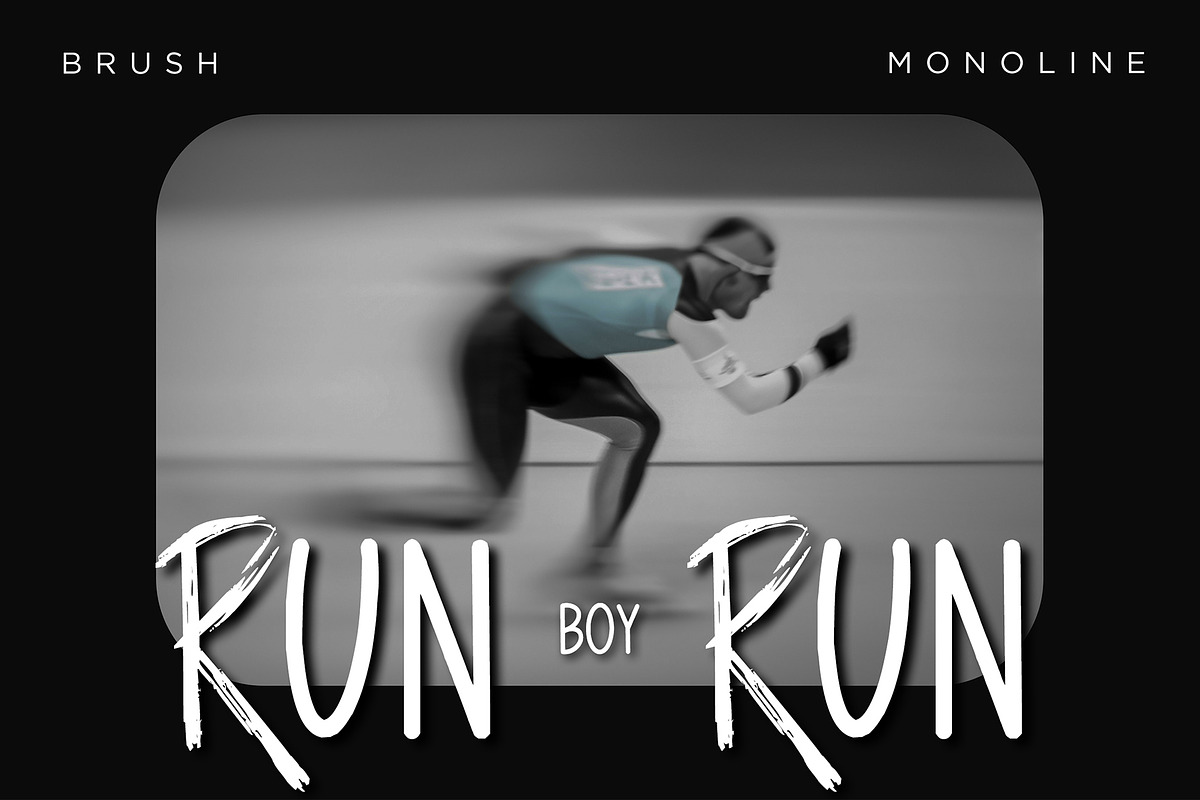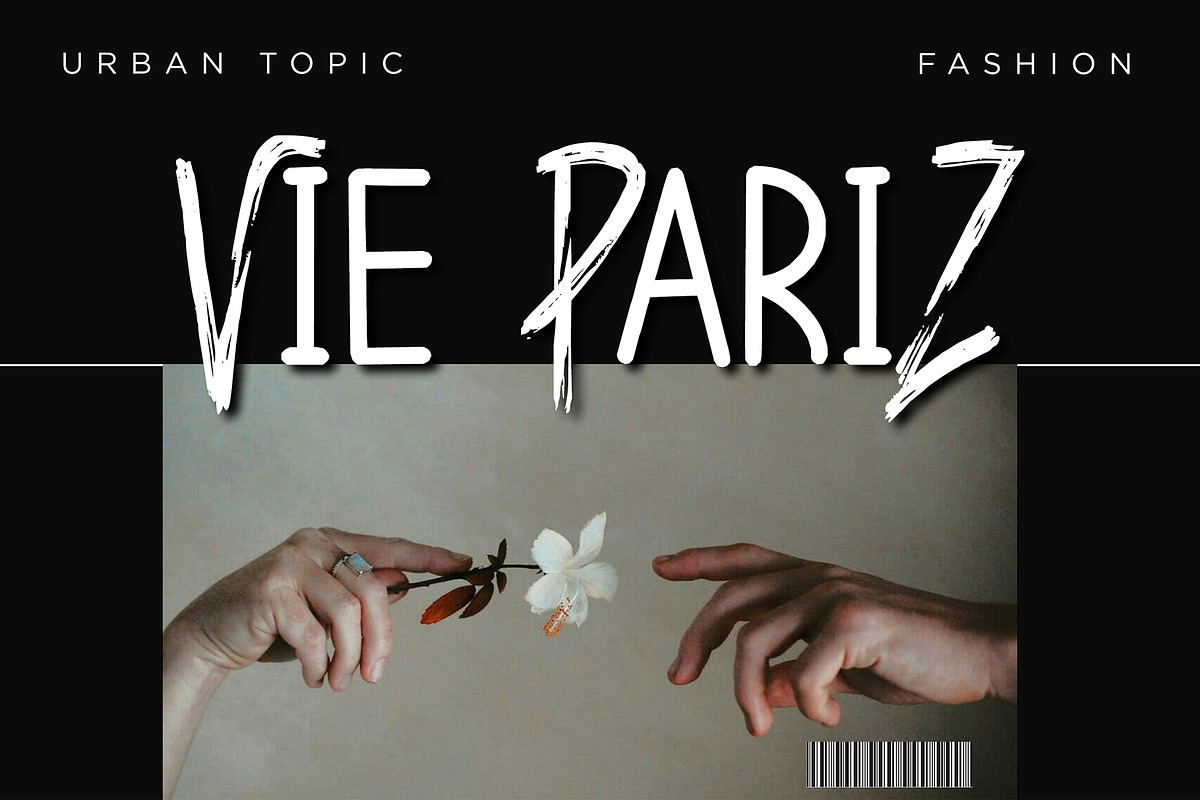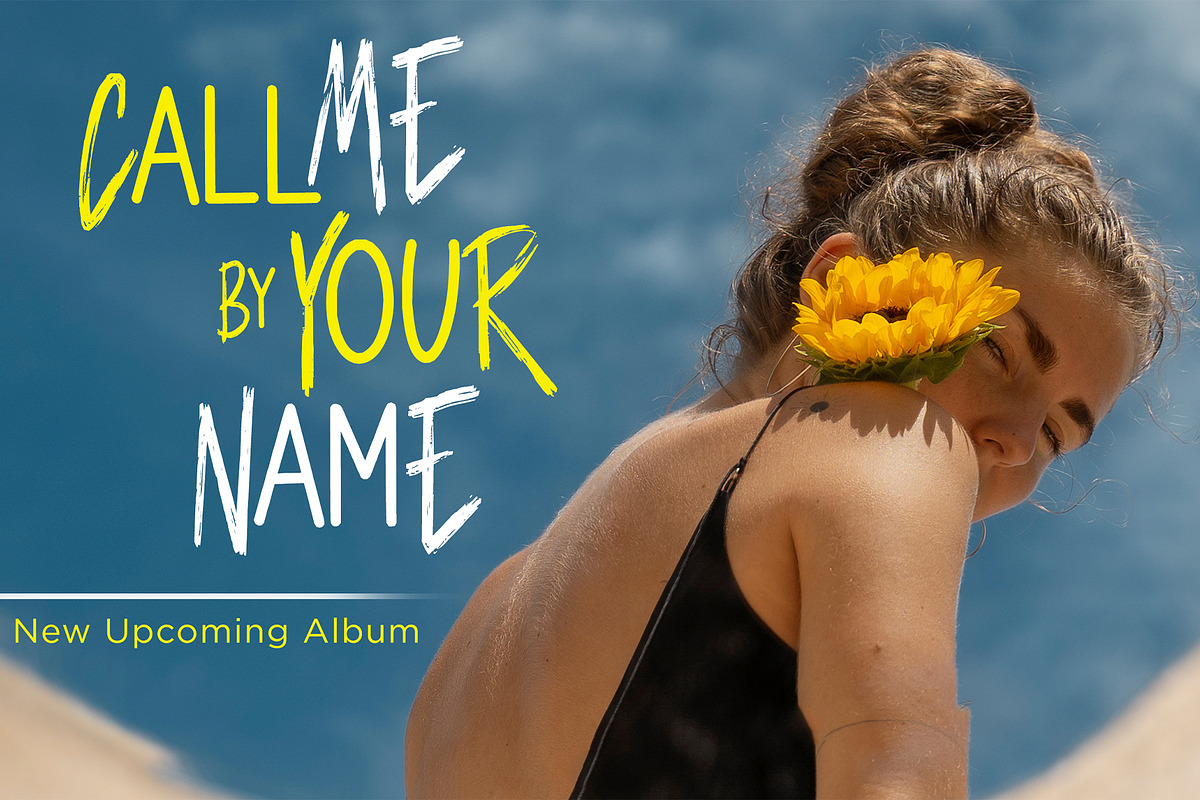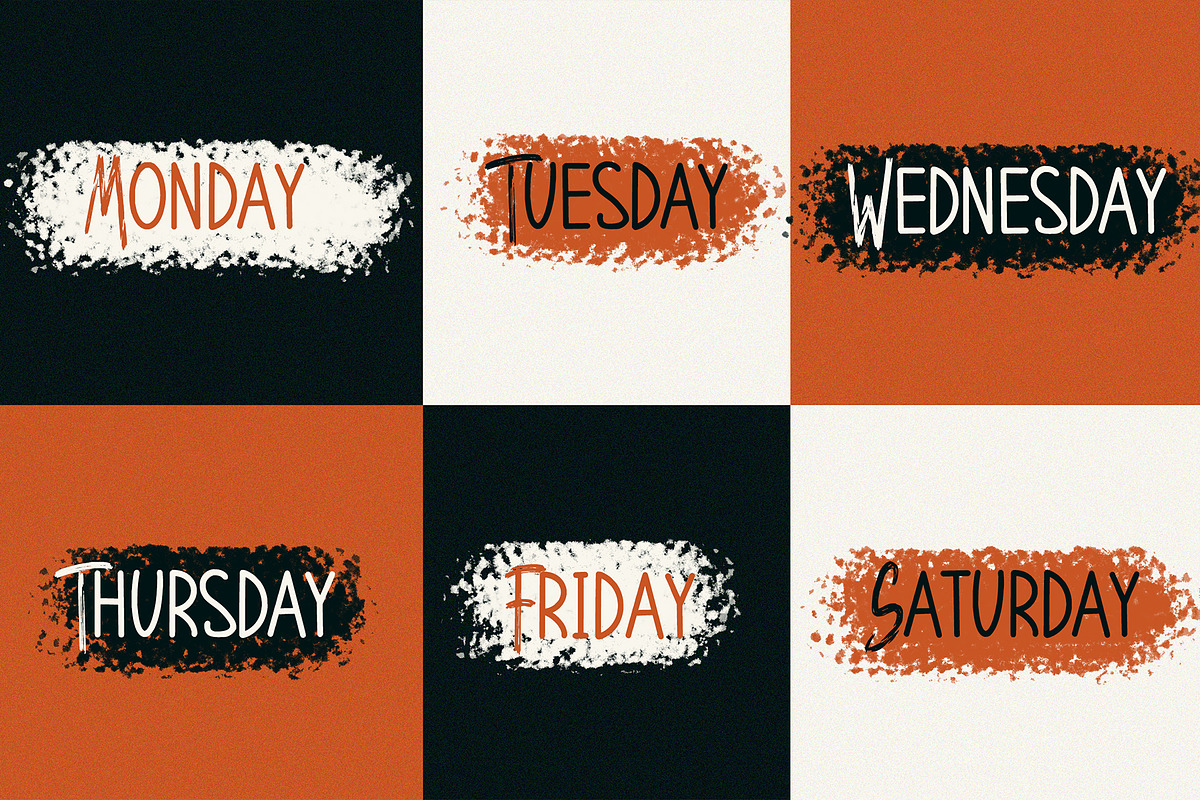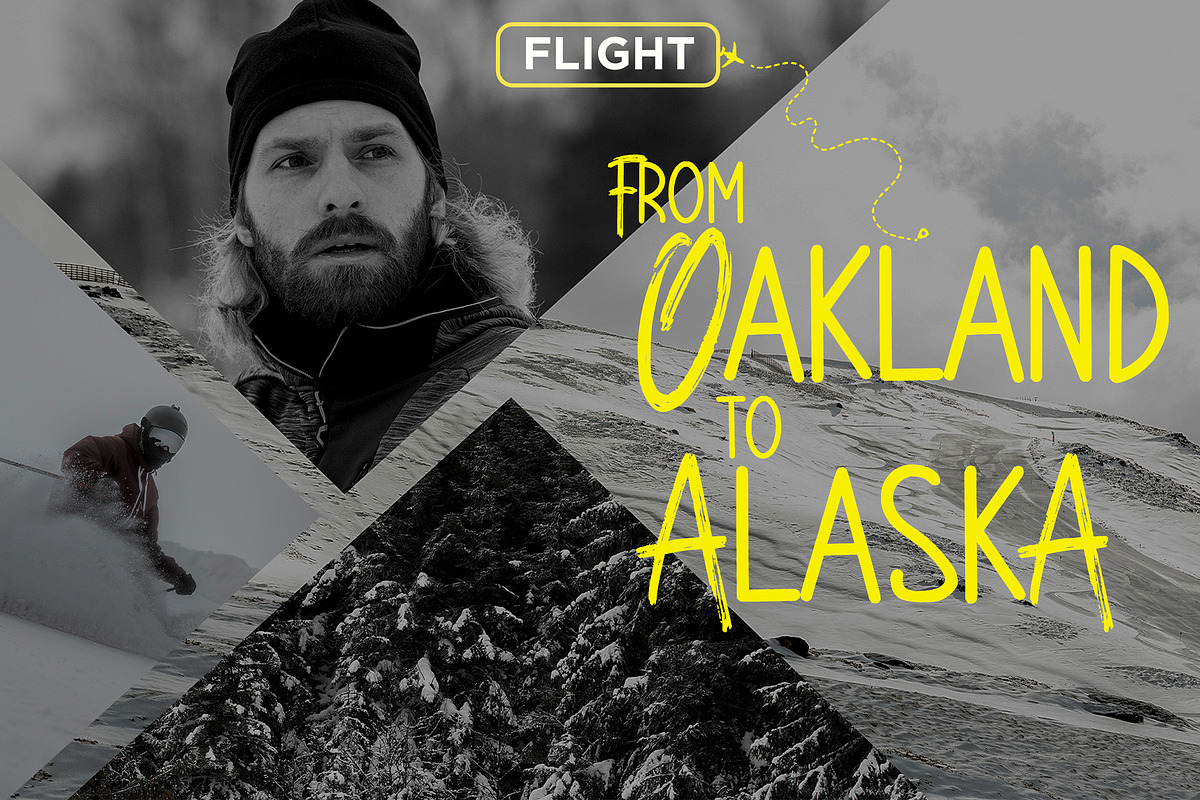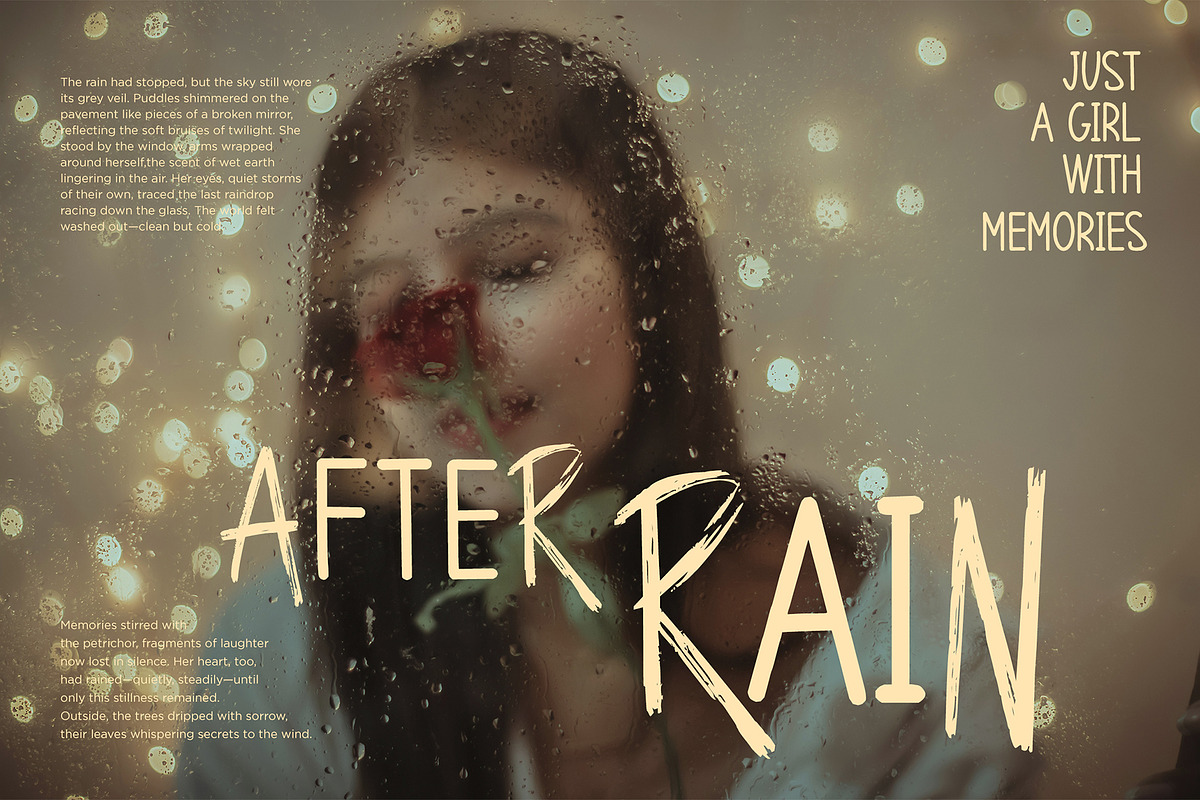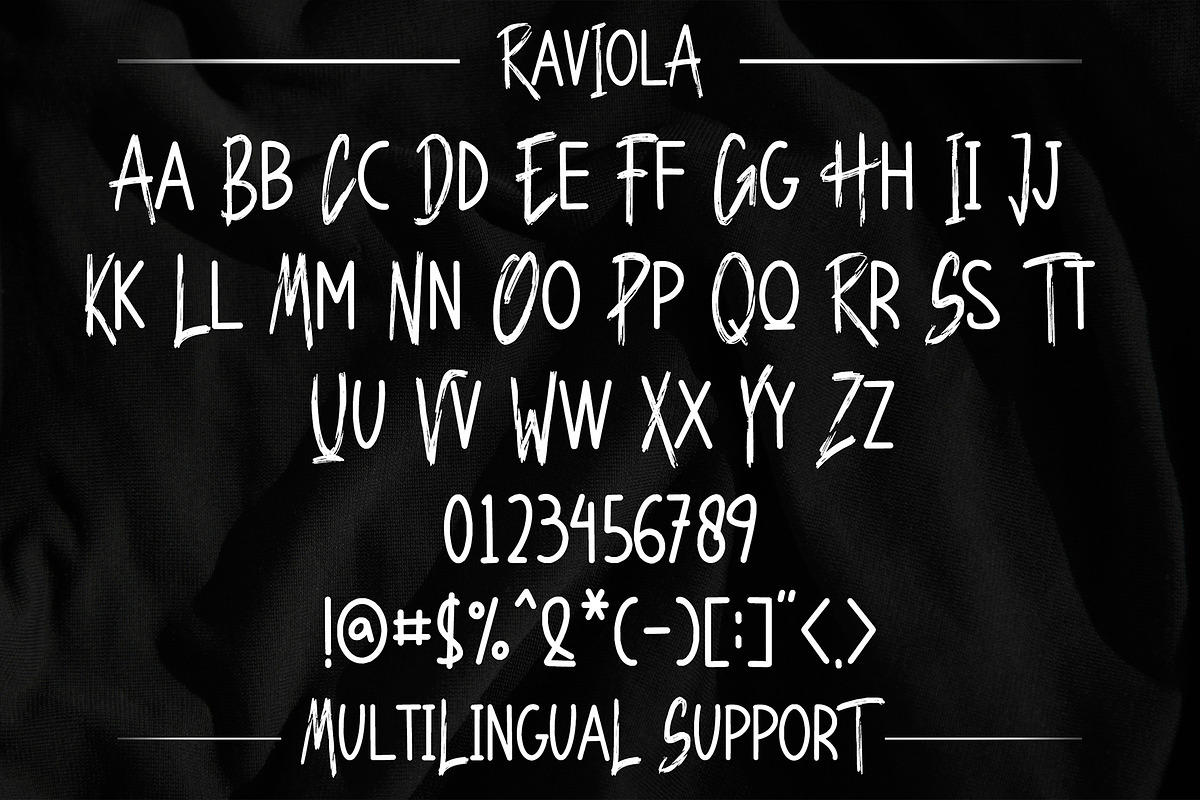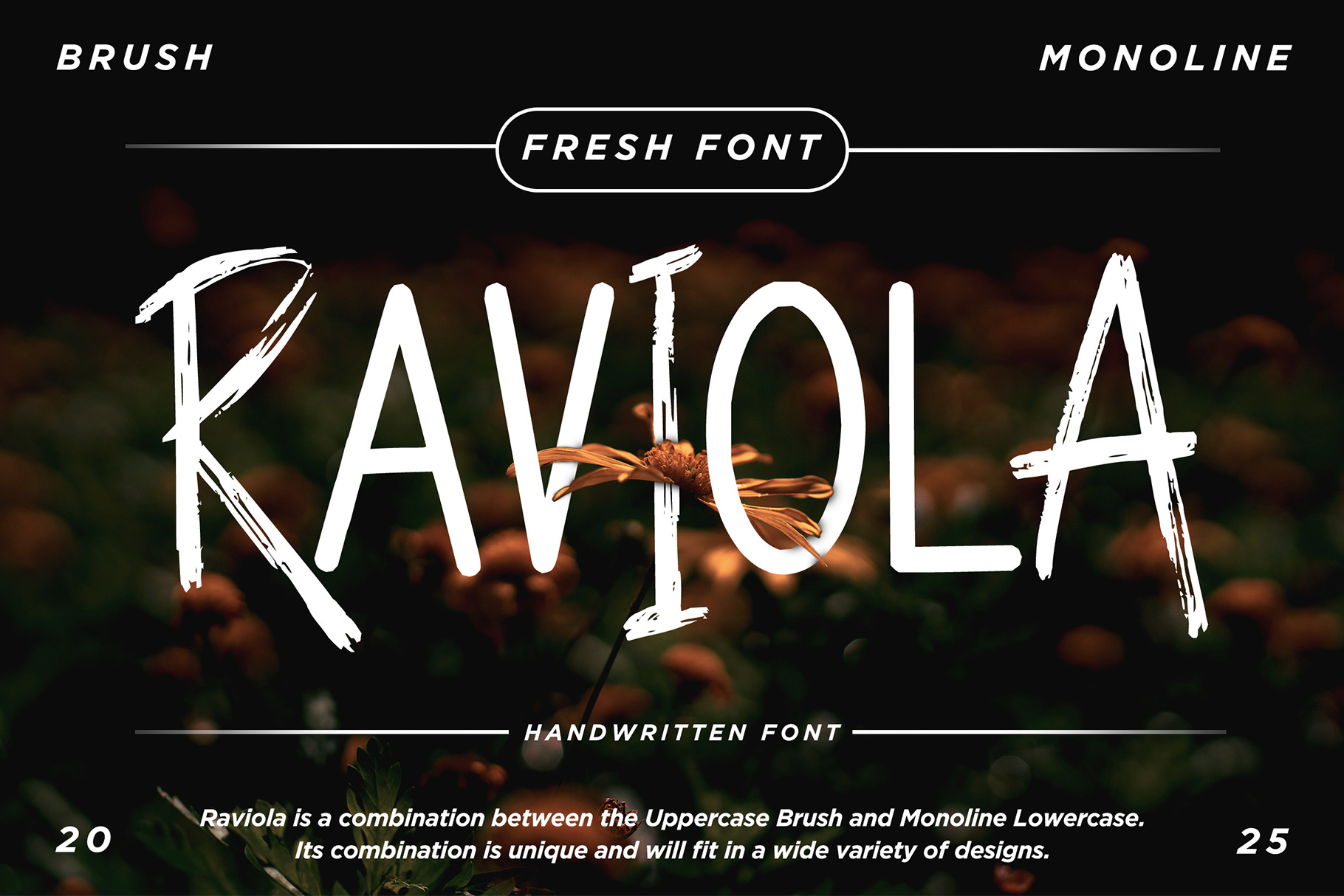
Raviola – A Handwritten Brush Font
Raviola is a stylish handwritten brush font crafted for designers who love a bold, expressive feel. This unique font merges uppercase brush strokes with monoline lowercase characters, resulting in a look that is both handcrafted and polished — perfect for logos, editorial designs, and standout branding.
Whether you're working on a luxury logo, a modern magazine layout, or a vintage sign painting-inspired piece, Raviola adapts beautifully. Its natural curves and raw brush texture bring an artistic, personal touch to every project, while the clean monoline elements add clarity and sophistication.
Raviola is ideal for:
Logo Design – Custom, memorable branding with personality
Luxury Branding – Add an upscale, elegant edge
Modern Projects – Trendy graphics, quotes, and digital art
Elegant Layouts – Magazine headers, fashion labels, and packaging
Vintage Design – Retro-inspired graphics with artistic flair
Sign Painting Aesthetic – Capture the charm of hand-painted signs
Brush Uppercase + Monoline Lowercase
Full alphabet, numbers, punctuation
OpenType Features & Multilingual Support
This handwritten brush font is perfect for anyone looking to combine elegance with a handmade feel. Whether you're crafting a modern logo, a vintage sign, or luxury packaging, Raviola offers the right mix of charm and clarity.